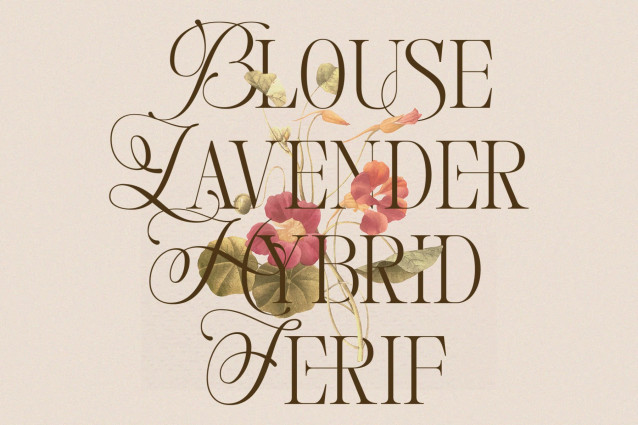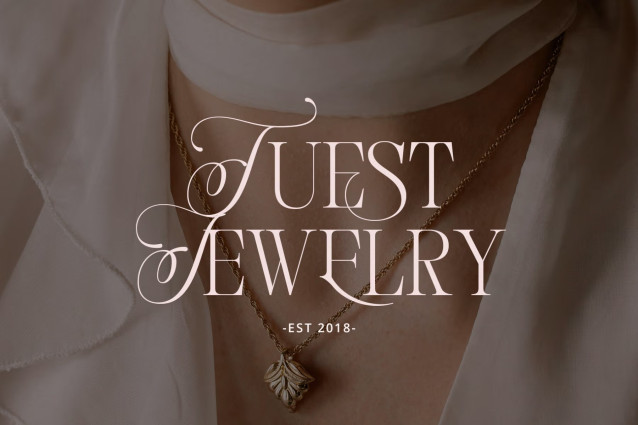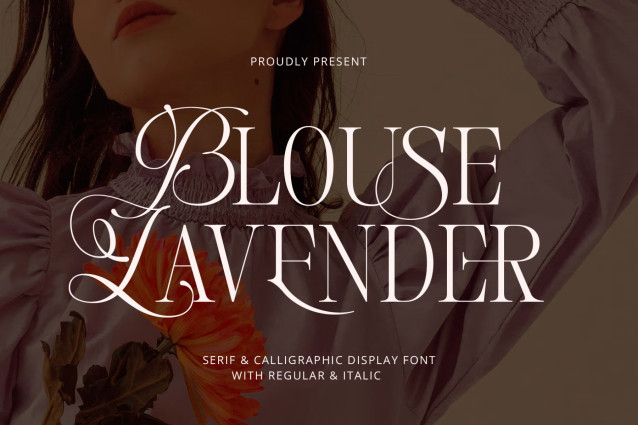
Blouse Lavender Display Serif Font
Introducing the serif font “Blouse Lavender”, which blends two styles elegant calligraphy and clean serif to create a premium, refined, and high-quality typeface that is pleasing to the eye.
Blouse Lavender is designed to bring imagination to life, adding a touch of class and character to your design projects. Using this font will give you a remarkable and inspiring visual experience, making your work stand out with elegance and sophistication.